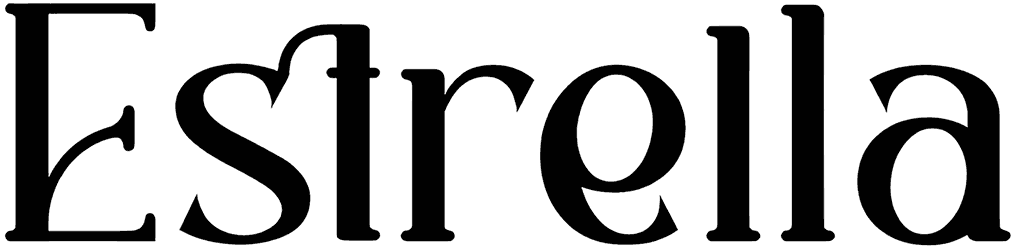
Estrella Font
Having a majestic serif font such as Estrella that comes with a minimalistic style would be totally tempting for any graphic artist who craves to design high-end artwork, including logos, invitations, product packaging, magazines, or book covers.